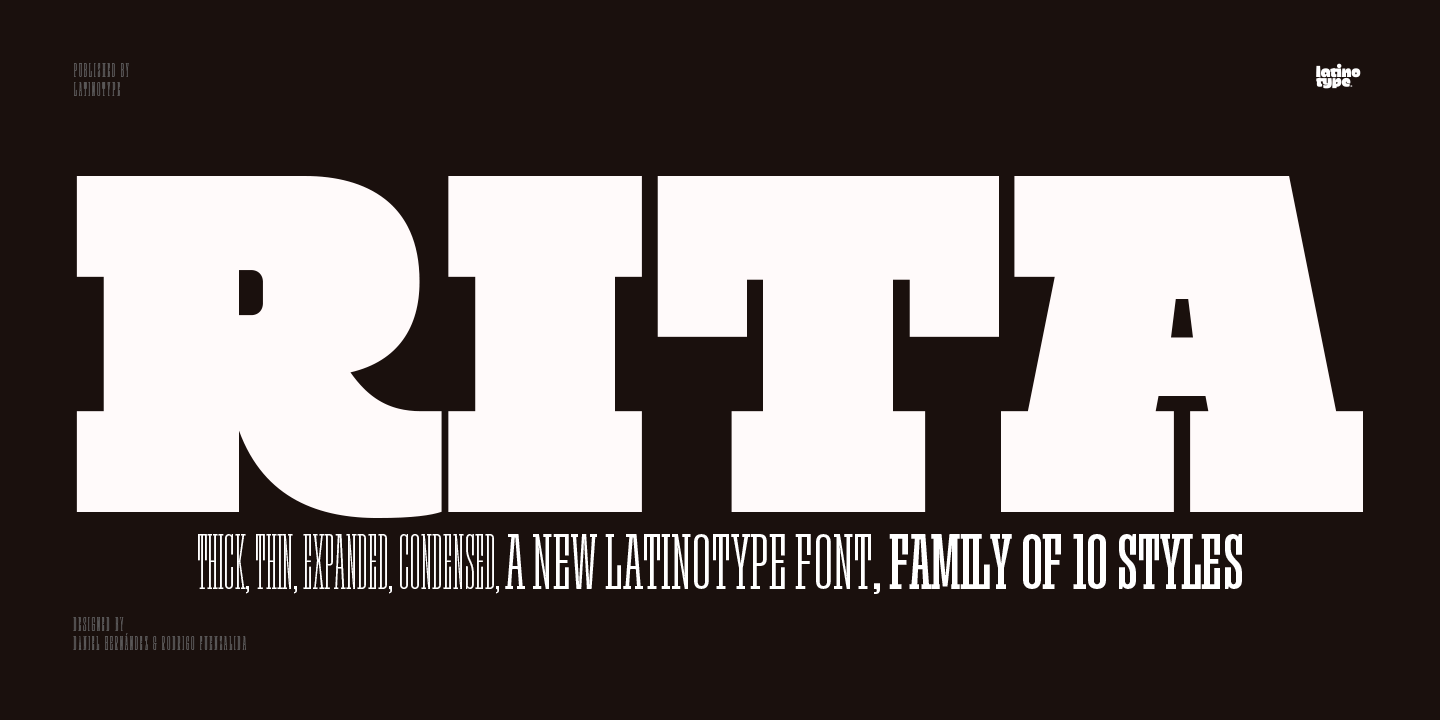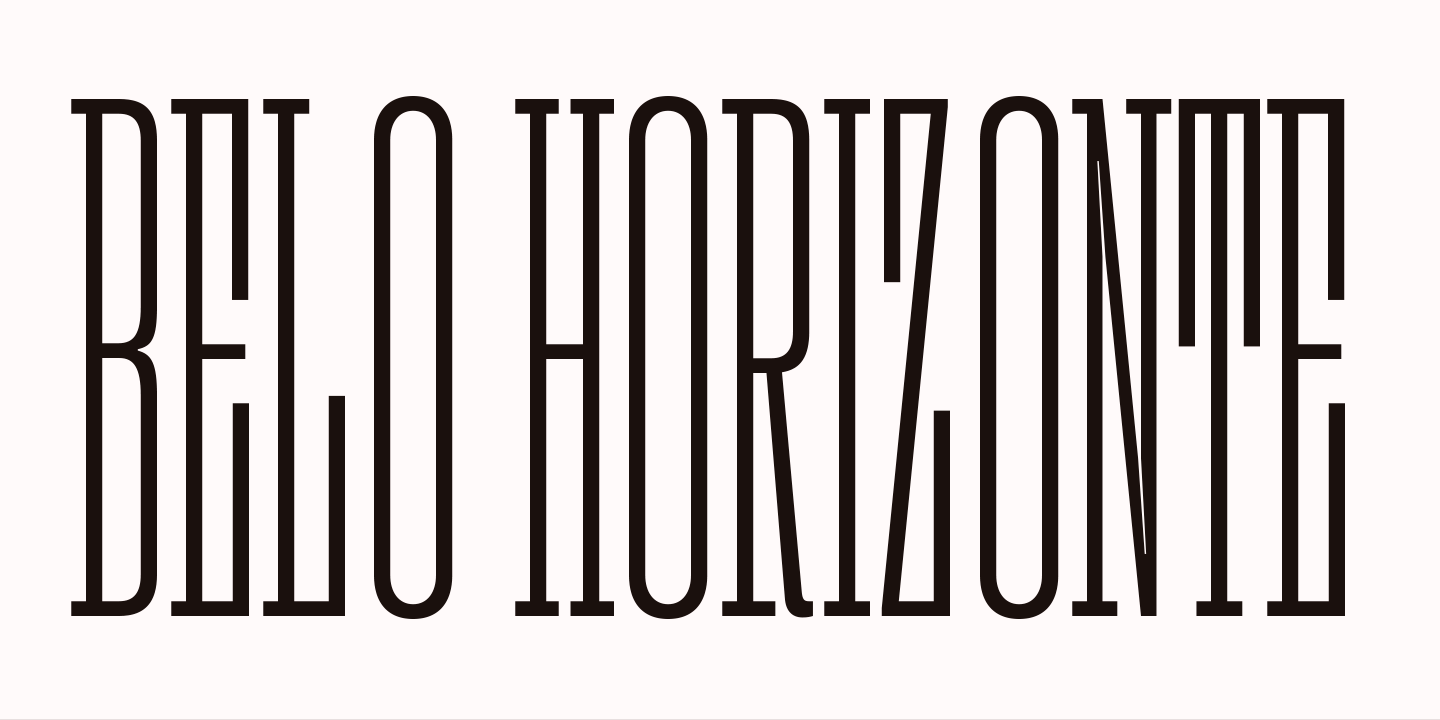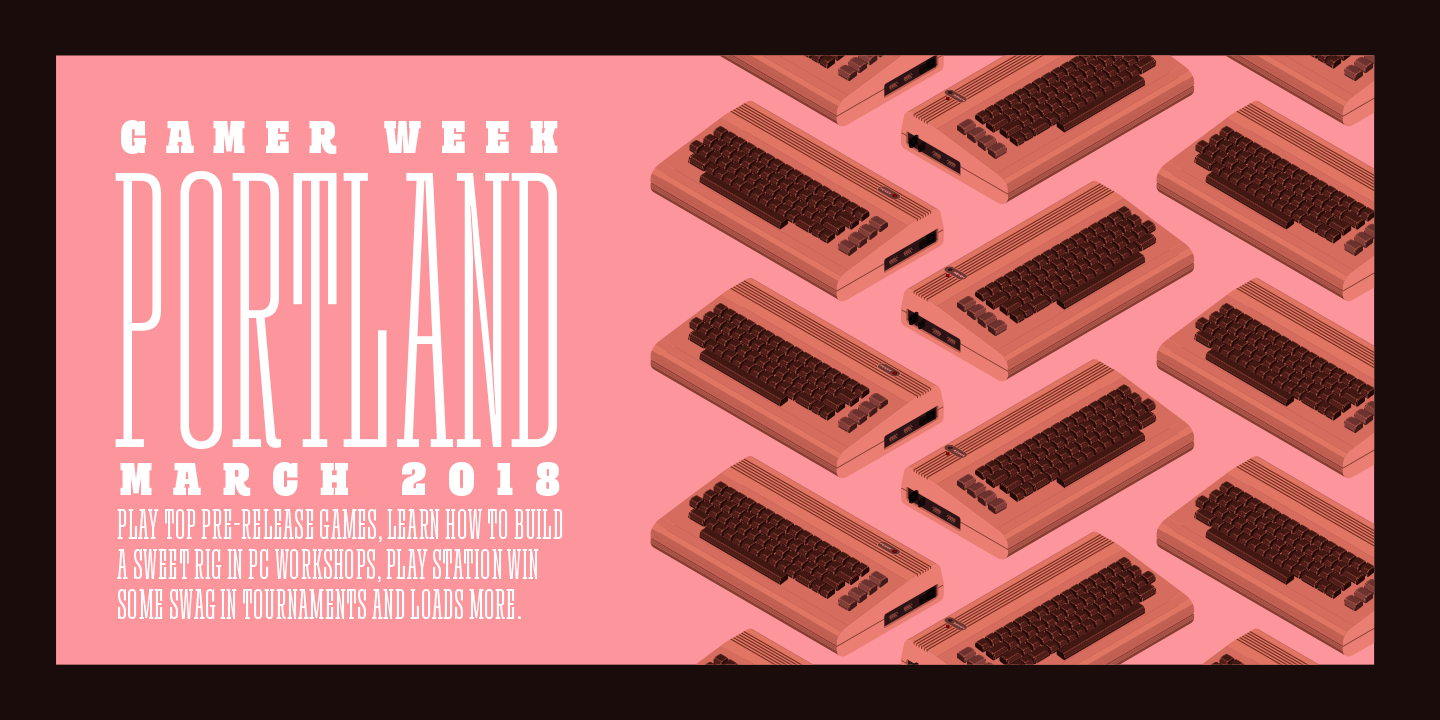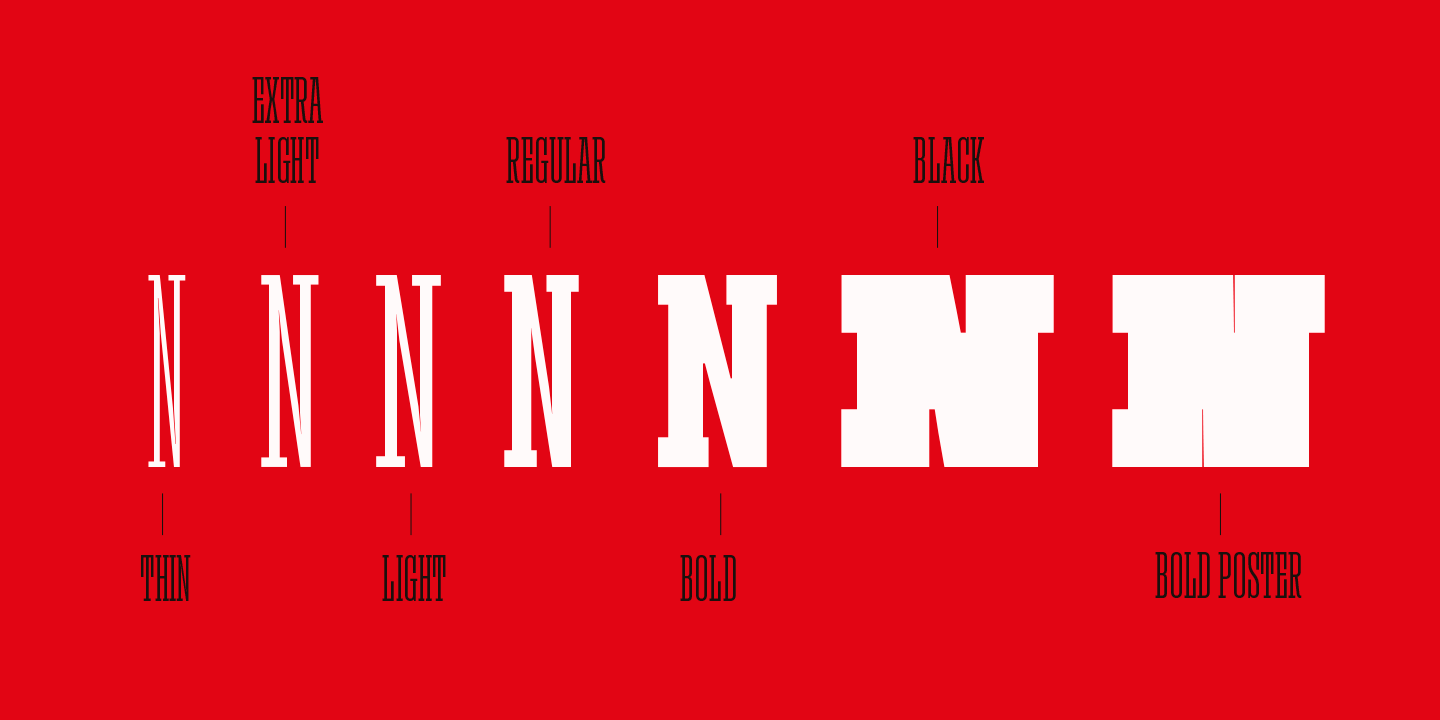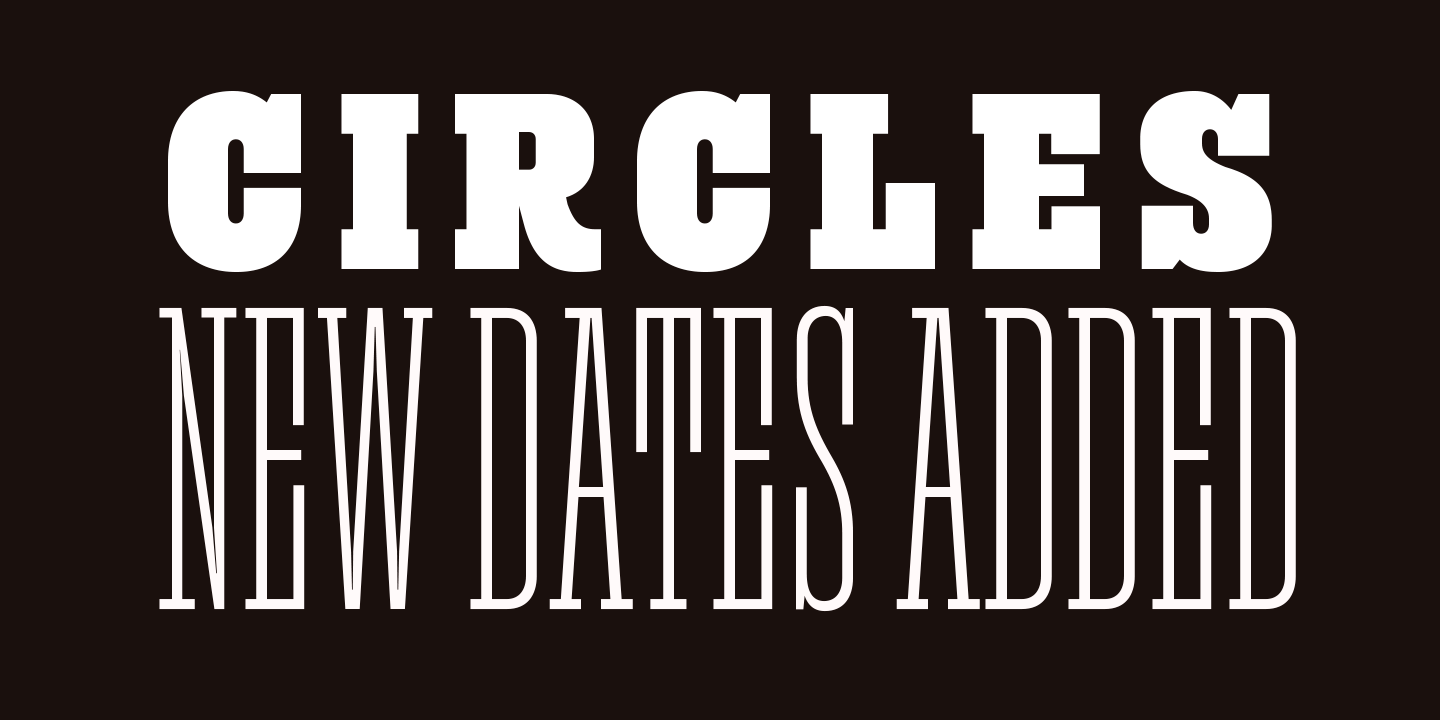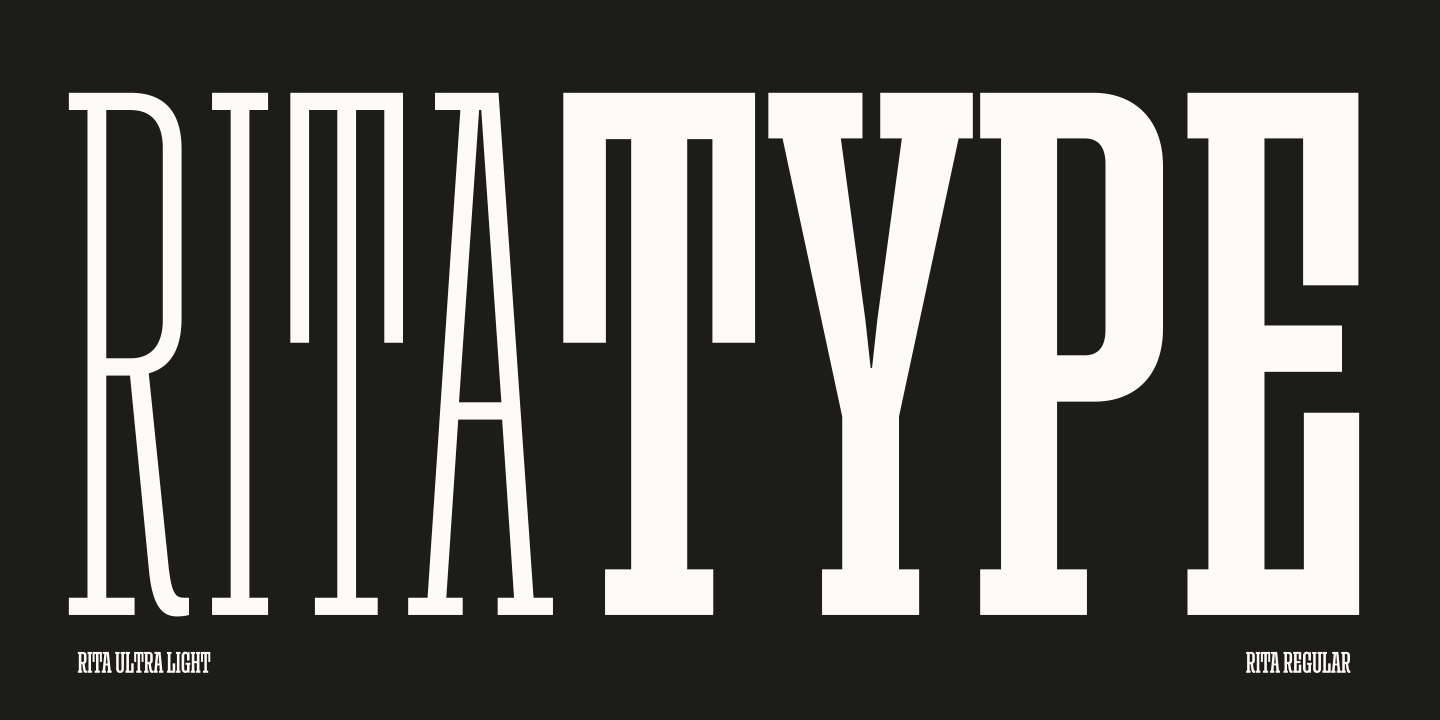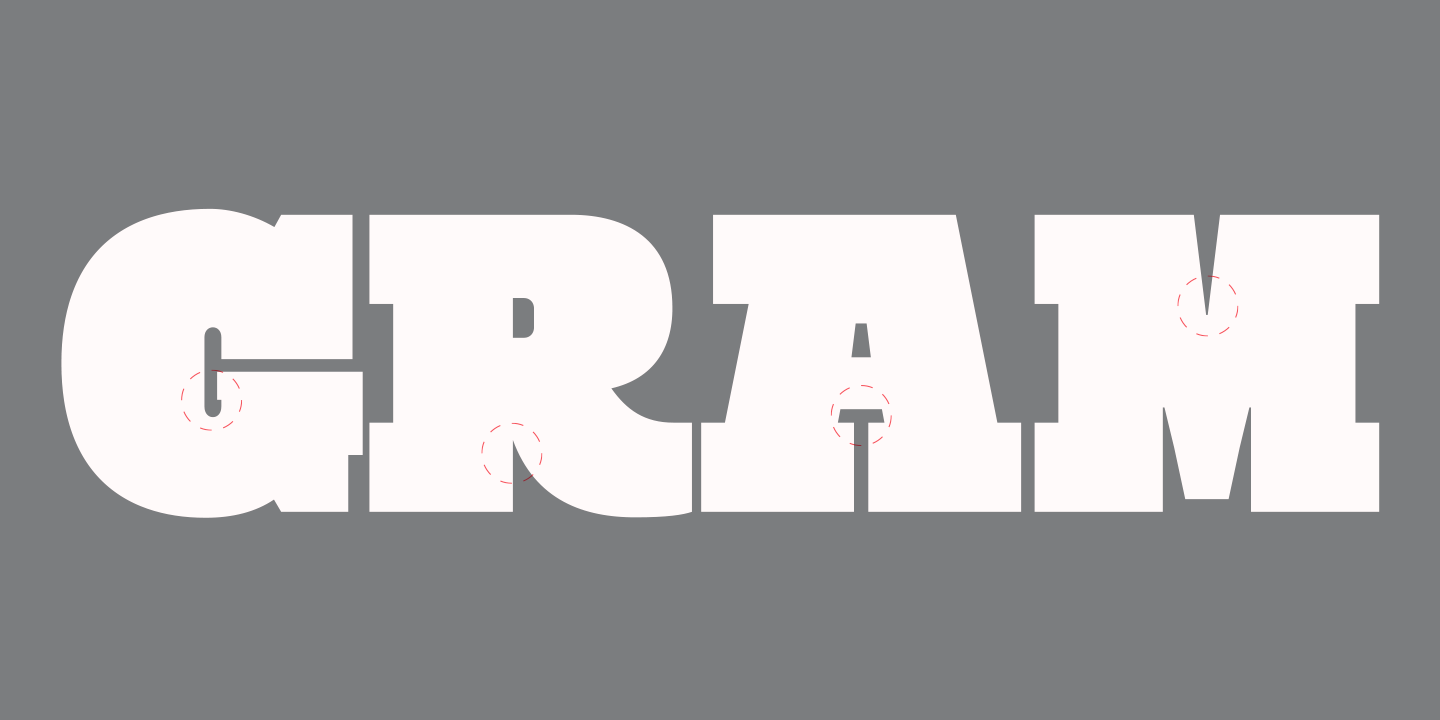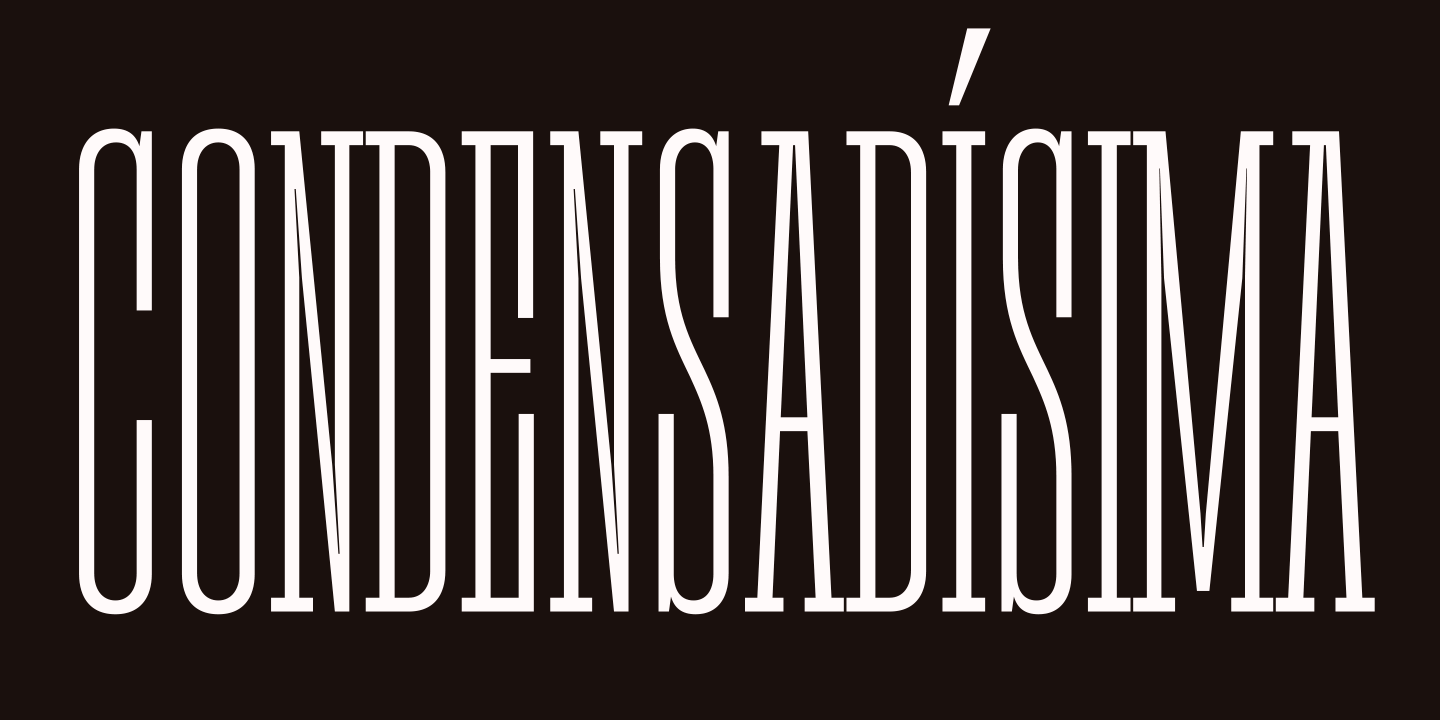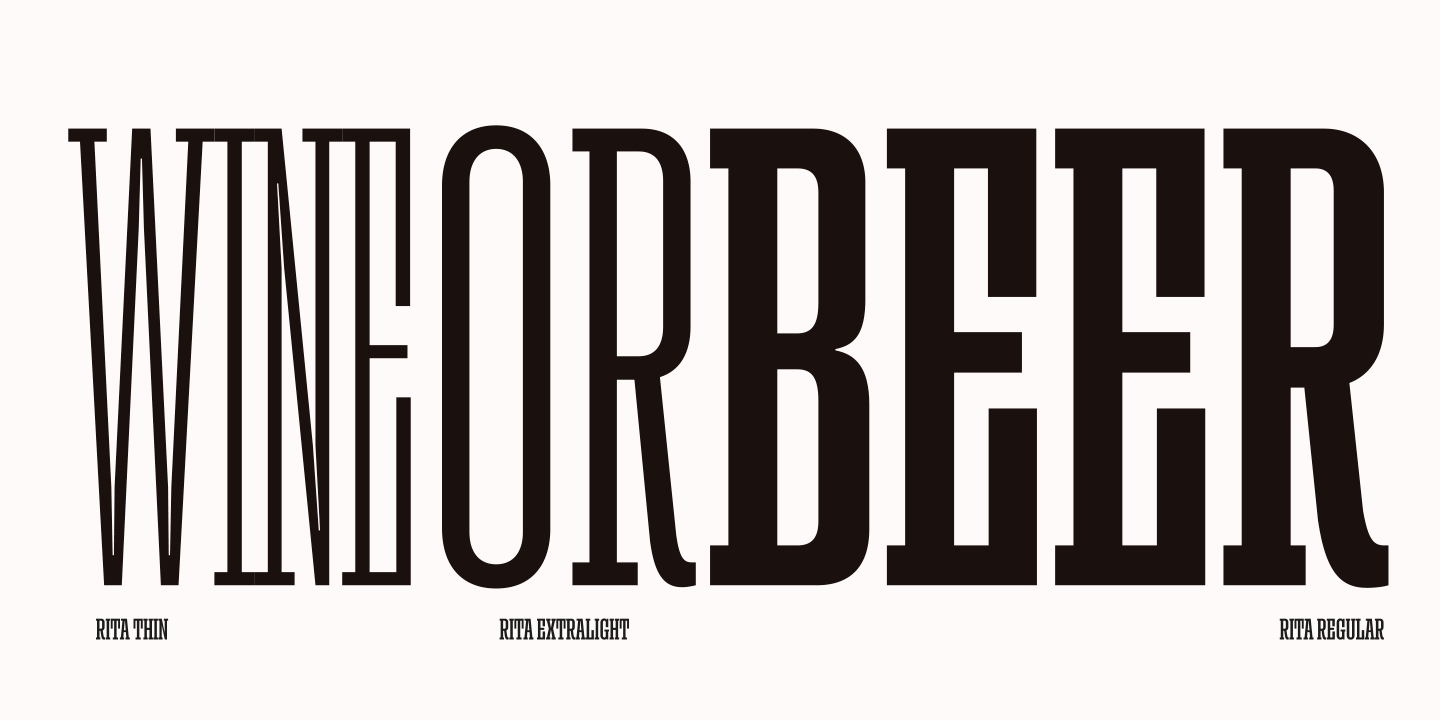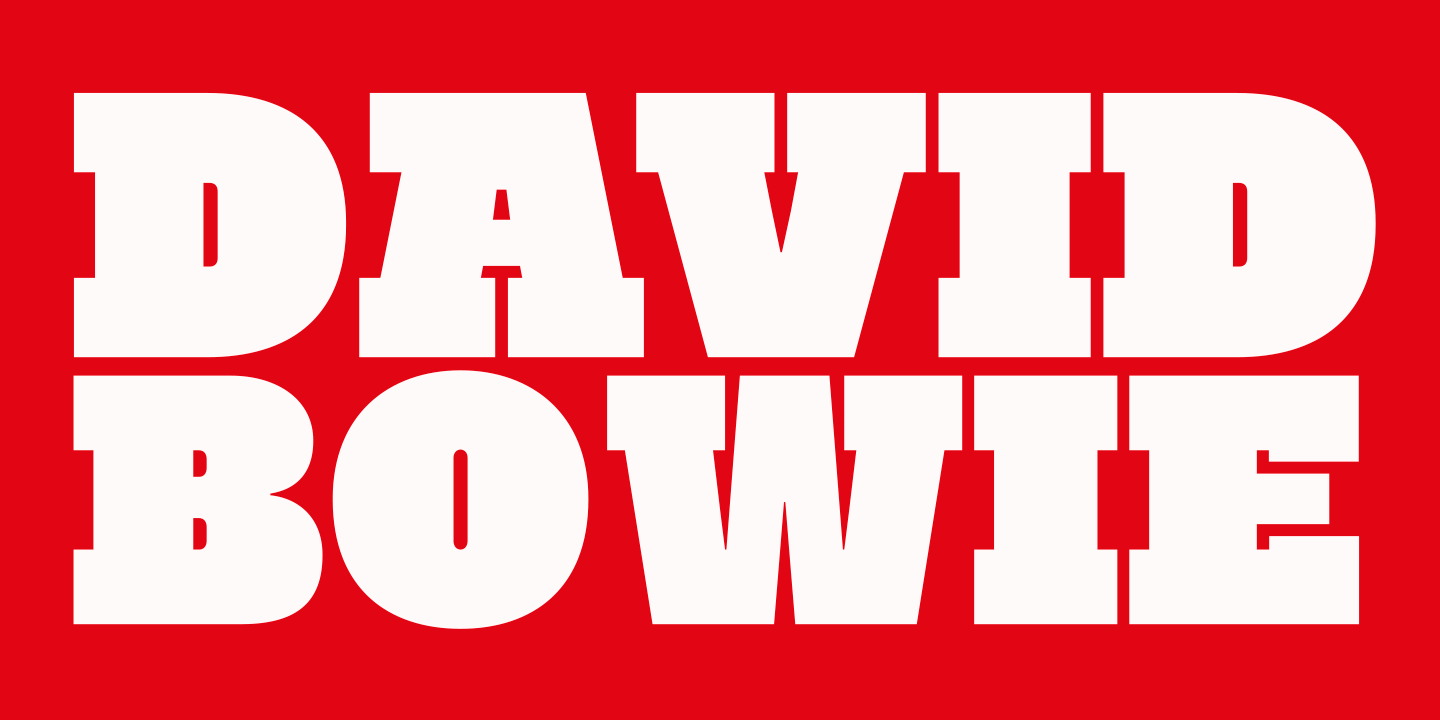
The publication of this more mature design is the result of a previous 1-style project which was developed in 2010. Rita, the new design, has increased from one single style to a full font family, with a strong personality, ideal for short text for high impact designs.
Rita is a slab serif typeface that offers a wide range of weights and widths—from a thin, ultra condensed font to a heavy variant for poster design.
Its variety of weights and widths allows users to create a number of different compositions such as titles and text for impact or high impact graphics.
Rita comes in 10 styles and includes a set of 400 characters that support over 200 languages.
Rita was designed by Daniel Hernández with the collaboration of Rodrigo Fuenzalida.